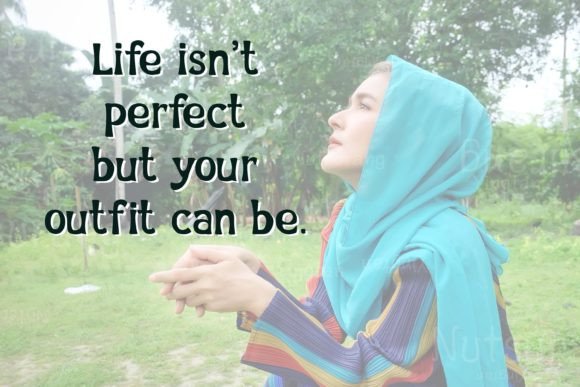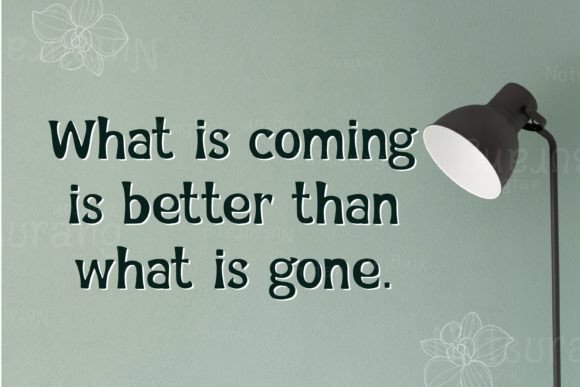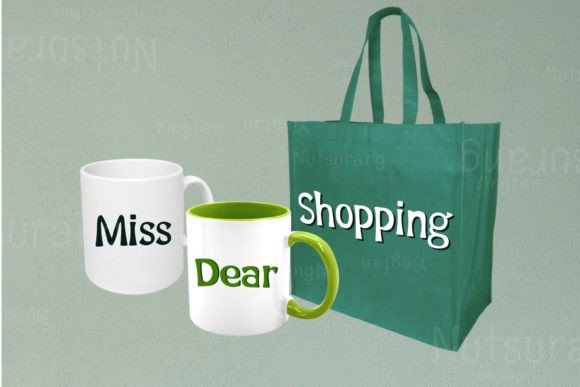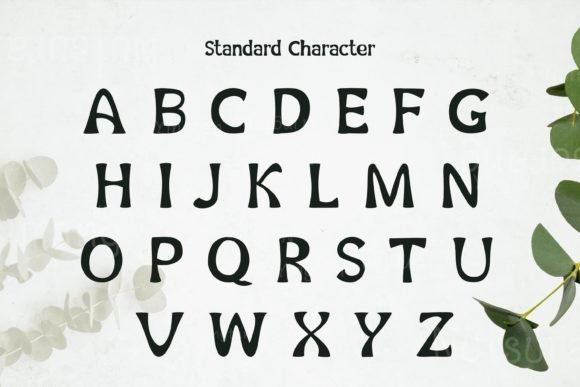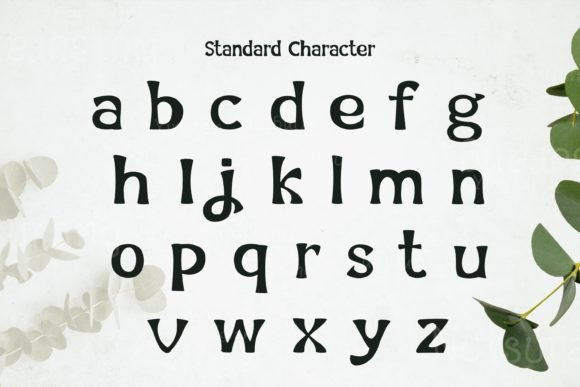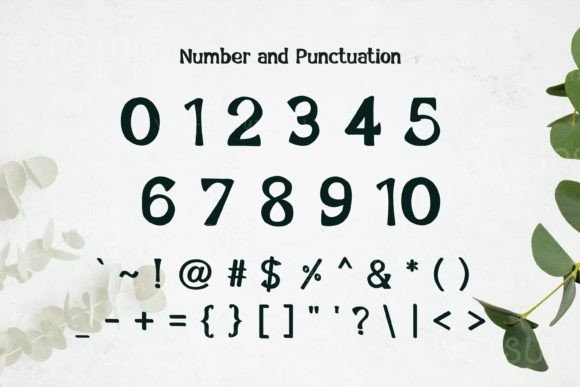
Introducing Everyday Font: Elevate Your Designs with a Clean and Natural Handwritten Style
Are you tired of using the same old fonts in your creative projects? Do you want to add a personal touch that makes your designs stand out from the crowd? Look no further than Everyday Font, a beautiful and versatile handwritten font that’s perfect for designers, crafters, and anyone looking to add a unique flair to their work.
What is Everyday Font?
Everyday Font is a clean and natural handwritten font that’s designed to bring a touch of warmth and personality to your designs. With its smooth, flowing lines and effortless charm, this font is perfect for a wide range of projects, from branding and advertising to crafting and DIY tutorials.
Key Features of Everyday Font
- Clean and Natural Design: Everyday Font features a clean and natural design that’s both elegant and approachable. Its handwritten style is perfect for creating a personal and relatable feel in your designs.
- Versatile and Adaptable: Whether you’re working on a logo, brochure, or social media graphic, Everyday Font is versatile enough to adapt to any design style or format.
- Easy to Read: With its clear and legible design, Everyday Font is easy to read and understand, making it perfect for body text, headings, and titles.
- Unique and Creative: Everyday Font is designed to help your designs stand out from the crowd. Its unique and creative style will add a touch of personality to your work and make it more engaging and memorable.
How to Use Everyday Font in Your Designs
Everyday Font is incredibly easy to use and can be incorporated into your designs in a variety of ways. Here are a few ideas to get you started:
- Branding and Logo Design: Use Everyday Font to create a unique and memorable logo that reflects your brand’s personality and style.
- Social Media Graphics: Add a personal touch to your social media graphics with Everyday Font. Use it to create eye-catching headlines, titles, and captions that will engage your audience.
- Crafting and DIY Tutorials: Everyday Font is perfect for crafting and DIY tutorials. Use it to create clear and easy-to-follow instructions that will help your readers create their own handmade projects.
- Advertising and Marketing Materials: Use Everyday Font to create eye-catching advertising and marketing materials, such as brochures, flyers, and posters.
Benefits of Using Everyday Font
There are many benefits to using Everyday Font in your designs. Here are a few:
- Increased Engagement: Everyday Font is designed to be engaging and memorable. By using this font in your designs, you can increase engagement and make your work more shareable.
- Improved Readability: Everyday Font is easy to read and understand, making it perfect for body text and other long-form content.
- Unique and Creative Style: Everyday Font will add a unique and creative style to your designs, setting them apart from the competition.
- Easy to Use: Everyday Font is incredibly easy to use and can be incorporated into your designs in a variety of ways.
| Author | N Nakorn Creative |
Everyday Font is a beautiful and versatile handwritten font that’s perfect for designers, crafters, and anyone looking to add a personal touch to their work. With its clean and natural design, versatile adaptability, and easy-to-read style, this font is sure to elevate your designs and make them stand out from the crowd. So why wait? Add Everyday Font to your creative toolkit today and start creating stunning designs that engage and inspire!